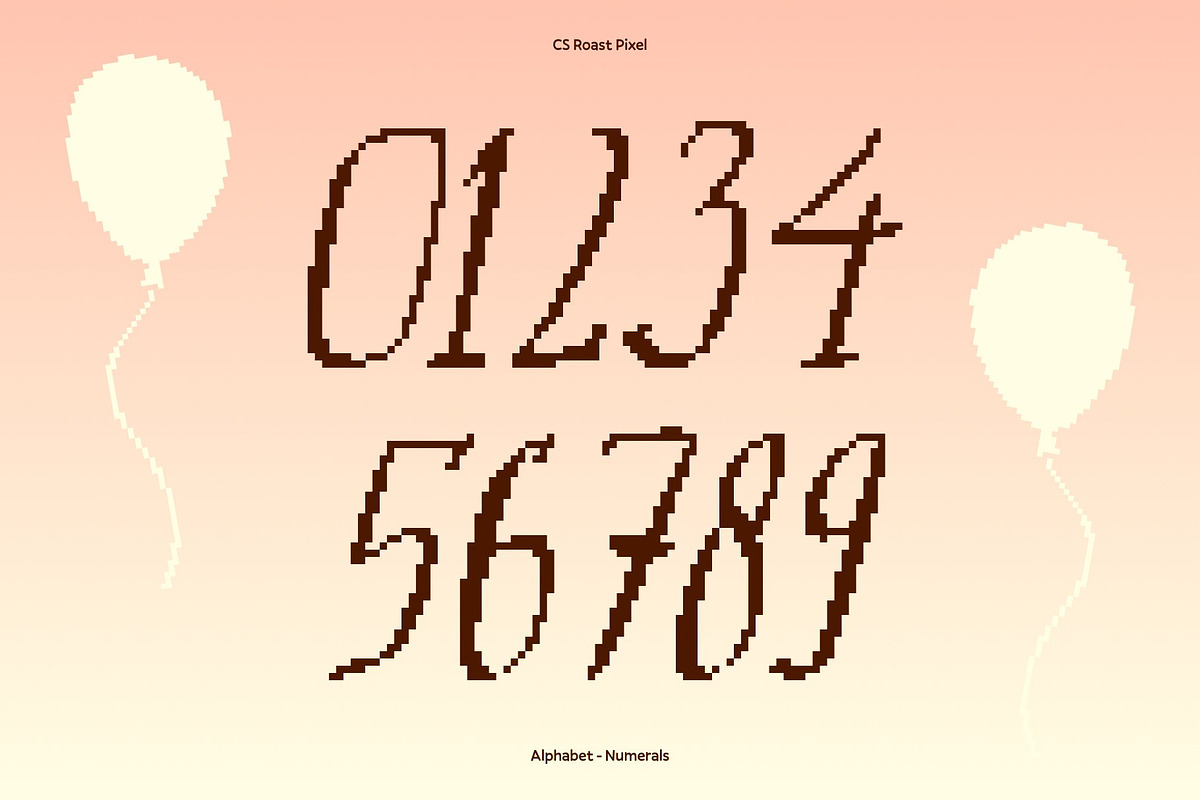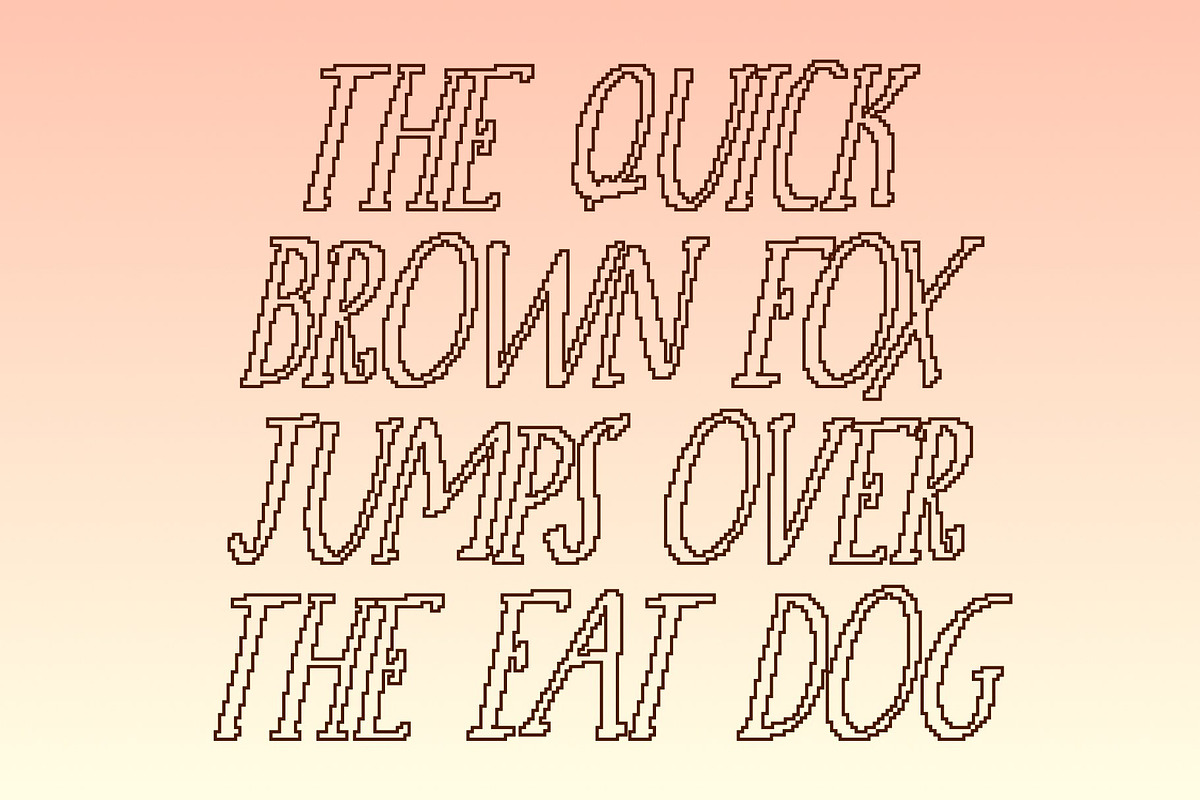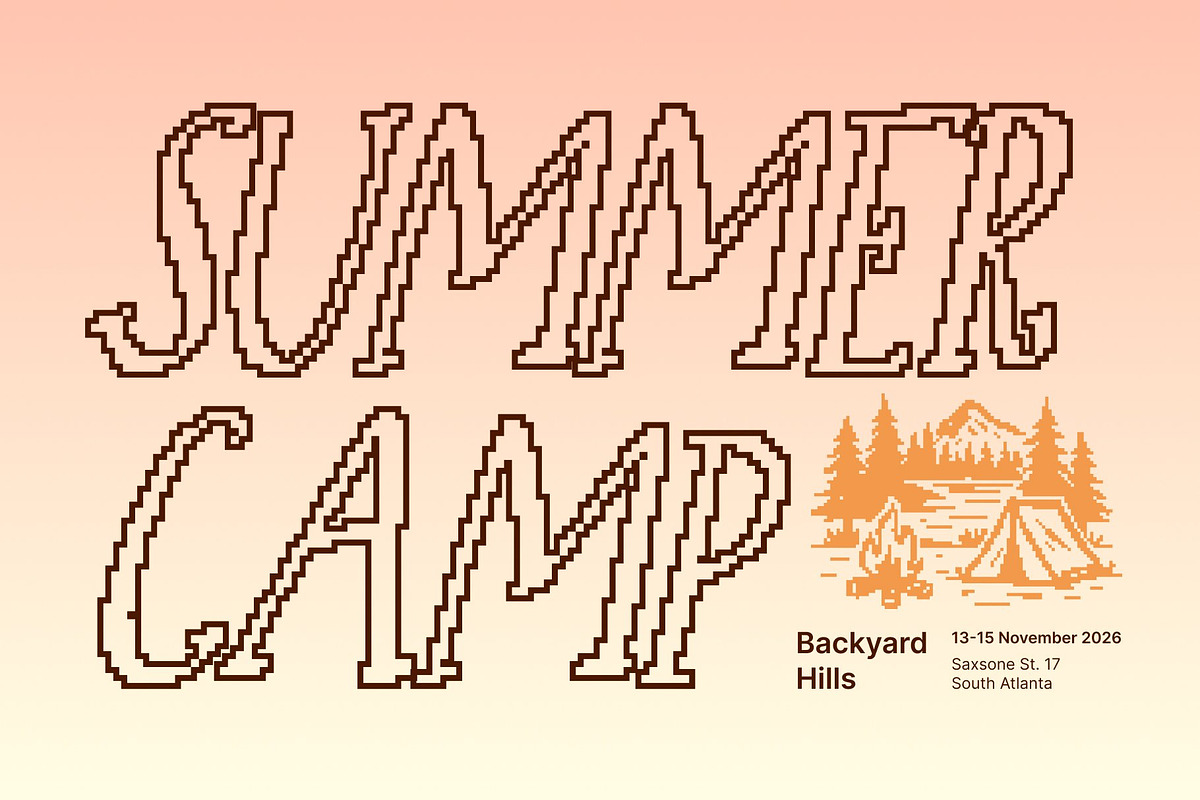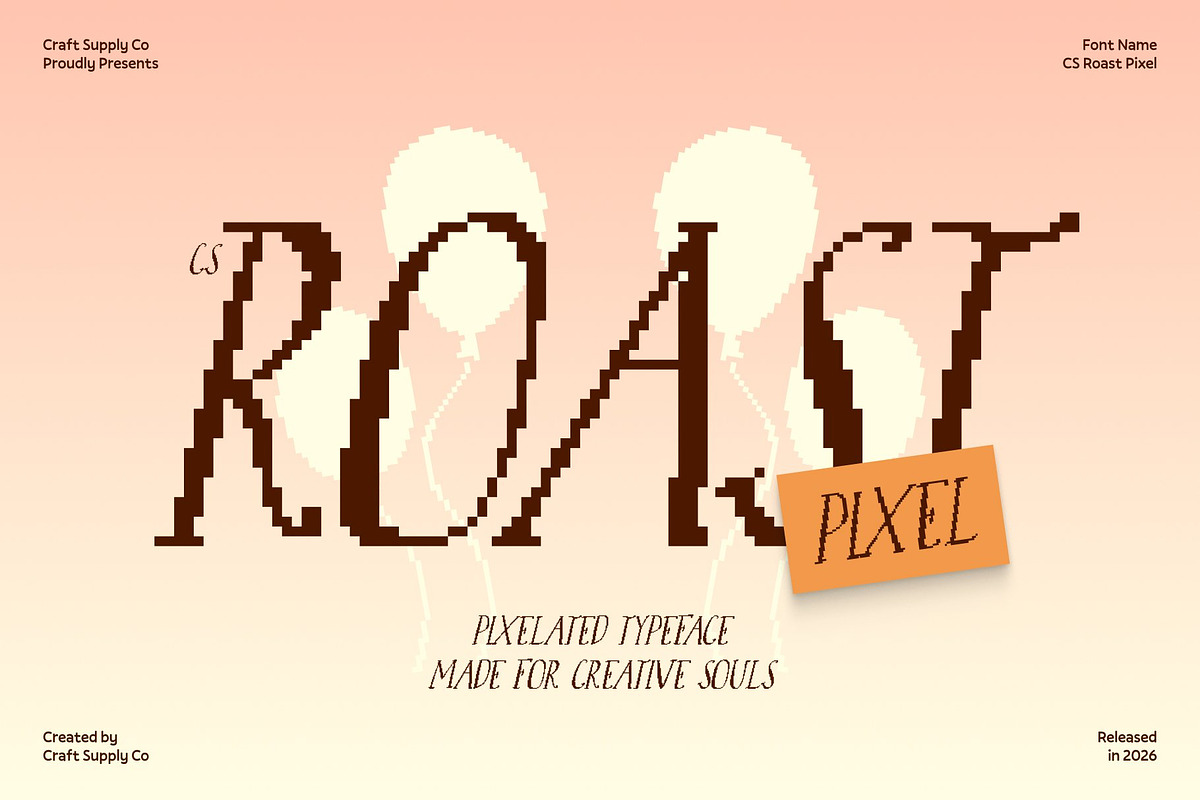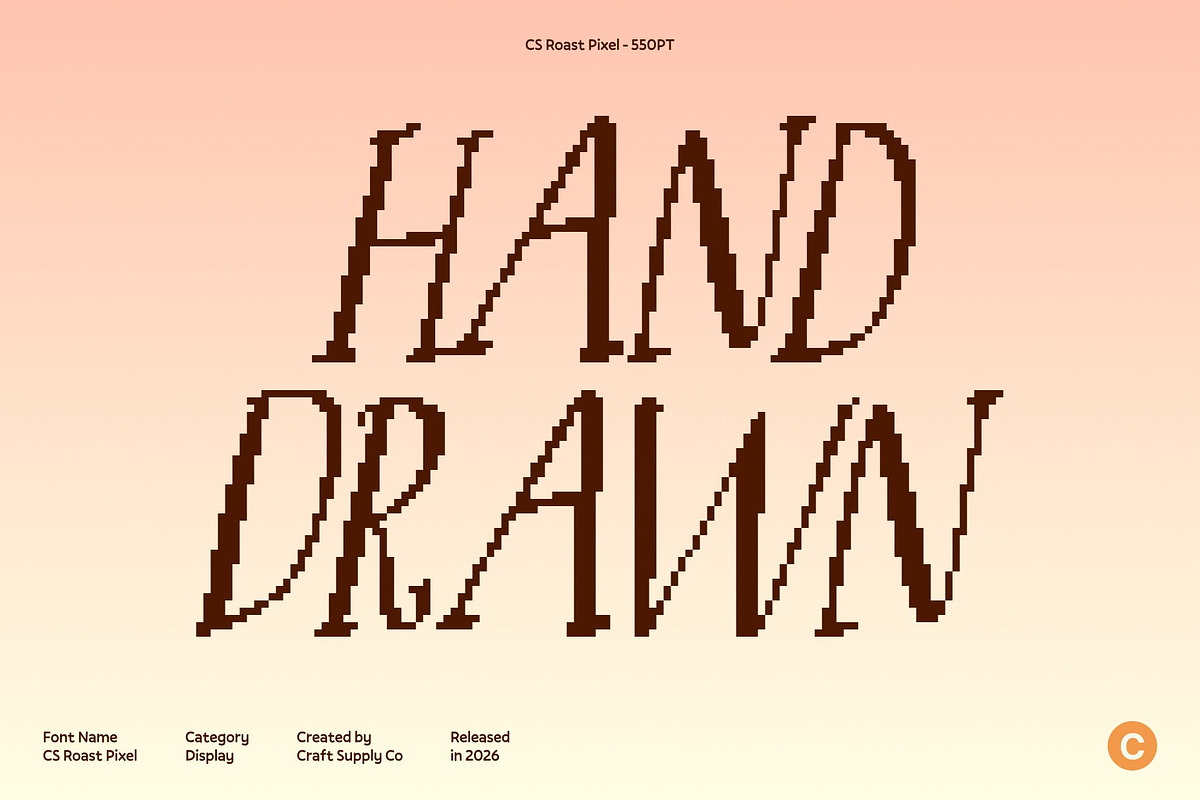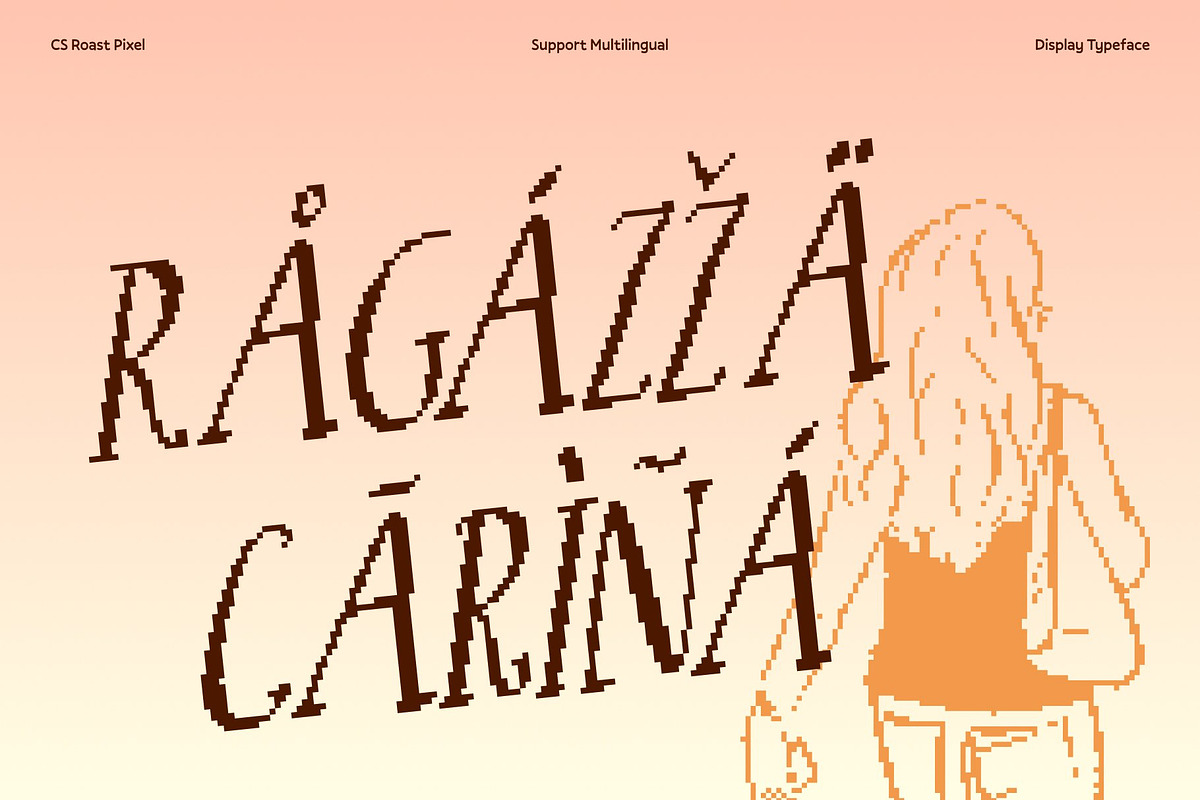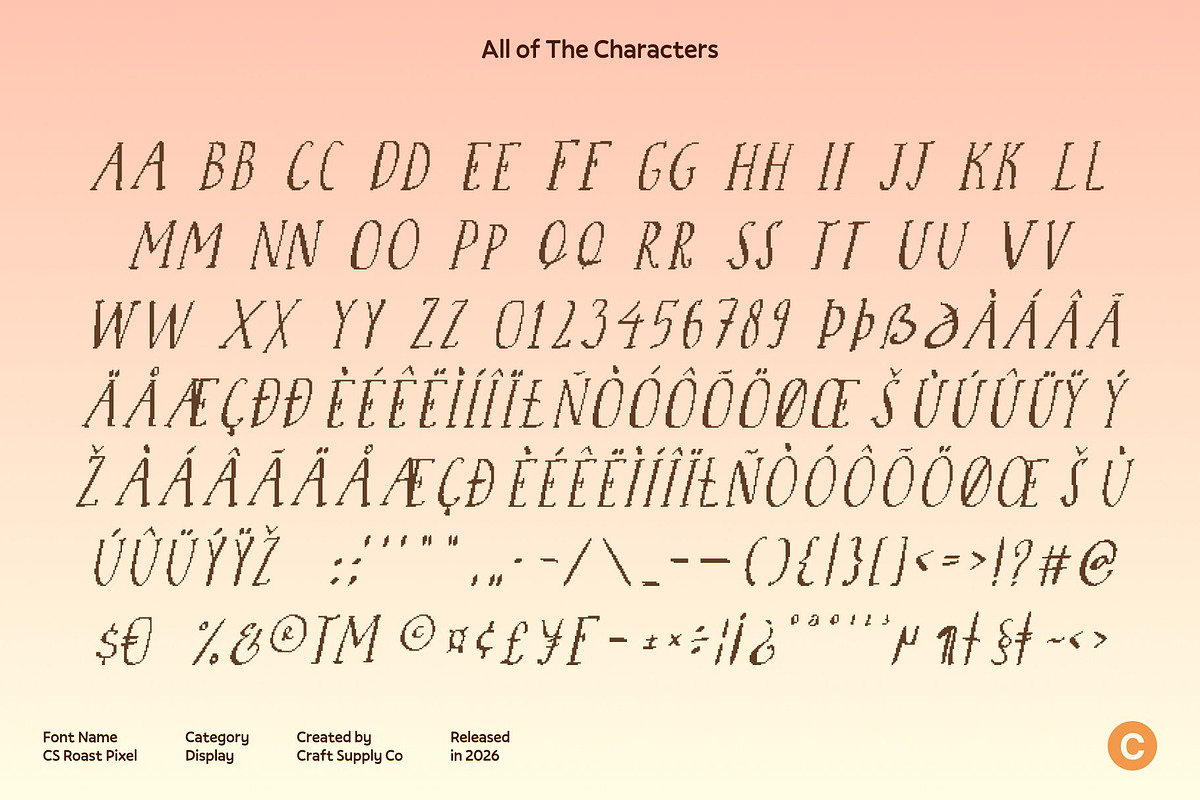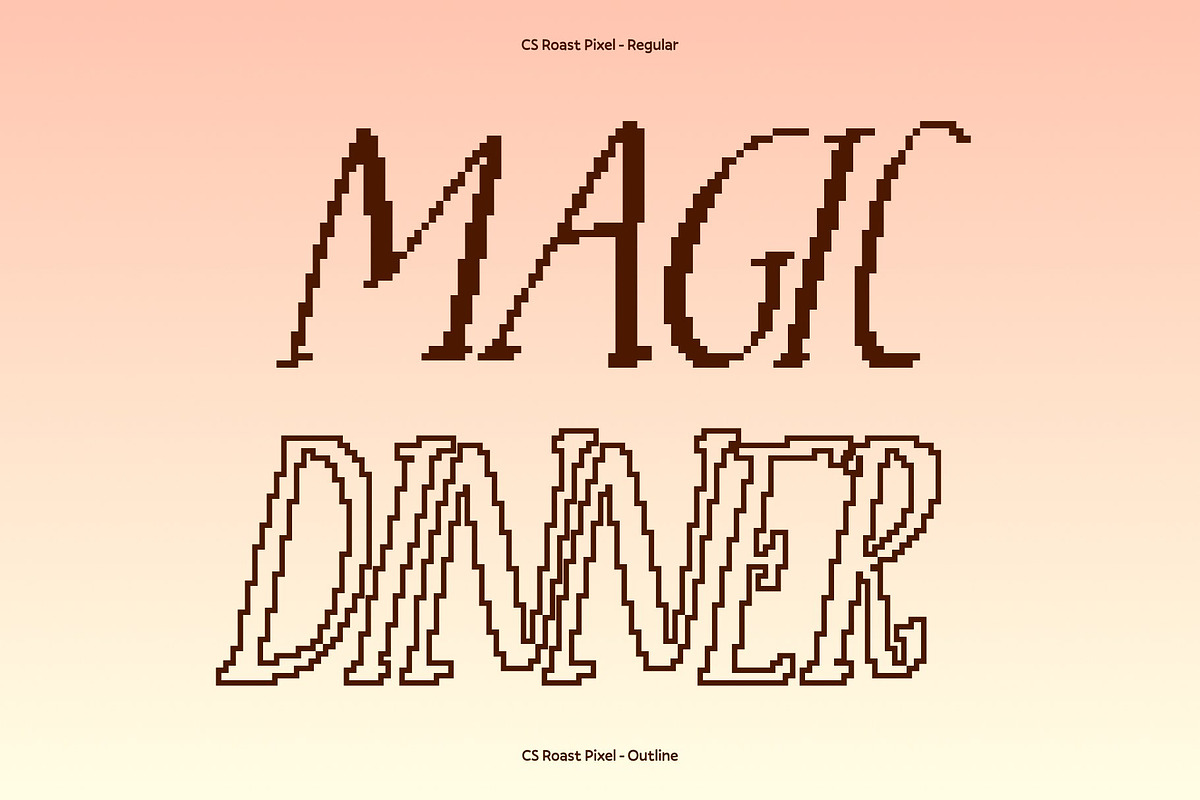
CS Roast Pixel
CS Roast Pixel – Whimsical Handwritten Font with Pixel Charm
Storybook Handwriting Meets Pixel Magic This is a whimsical handwritten font reimagined with pixel-style edges, combining the charm of classic fairytale lettering with the crisp, geometric precision of digital design. Its playful curves and decorative details retain the warmth of hand-drawn storytelling while giving it an eye-catching, retro-tech personality.
Curved Serifs with Pixel Playfulness The soft, curved serifs and lively strokes are now enhanced with pixel-inspired detailing, adding a structured, almost arcade-like character to each letter. This fusion of organic handwriting and pixel clarity ensures that the font is both readable and visually engaging, bridging the gap between whimsical charm and digital modernity.
Perfect for Digital Storytelling and Creative Projects This font shines in fantasy posters, children’s apps, game titles, playful branding, and packaging that wants to evoke imagination with a tech-savvy twist. Its whimsical pixel aesthetic captures attention while maintaining the storytelling magic of the original design.
A Typeface That Sparks Imagination and Retro Fun This font is more than letters it’s a tool for dreamers, creatives, and digital storytellers. Whether for fantasy branding, interactive digital content, or retro-inspired game visuals, adds a spark of joy, charm, and playful energy that turns every project into a visually delightful experience.
- CS Roast Pixel Regular
- CS Roast Pixel Outline